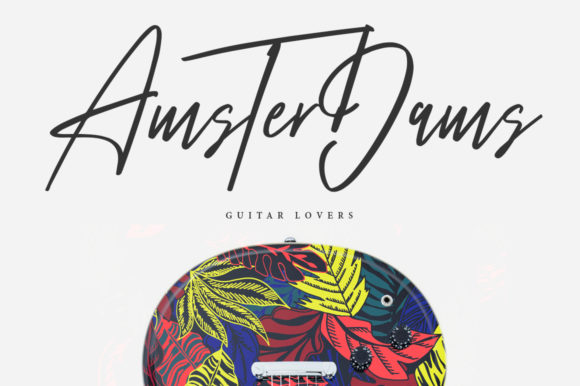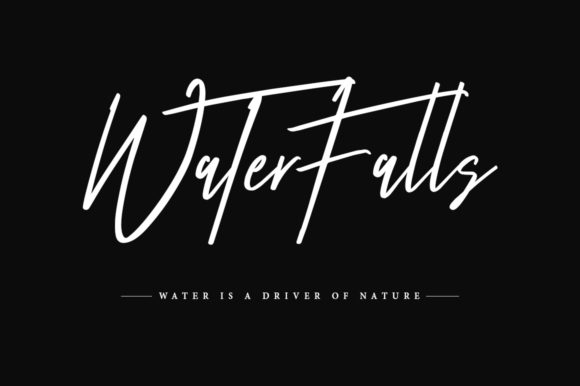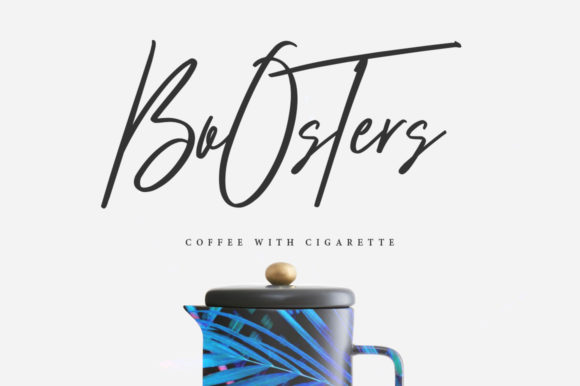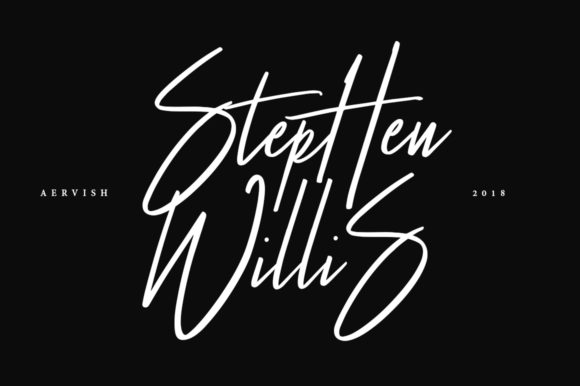
Aervish Font: The Perfect Casual Handwritten Font for Designers and Crafters
In the world of typography, fonts play a crucial role in conveying the tone and personality of a brand or project. For designers and crafters looking for a casual, yet unique and quirky font, Aervish is an excellent choice. This beautiful handwritten font, created using a brush pen, is perfect for a wide range of applications, from logos and branding to social media and DIY projects.
What is Aervish Font?
Aervish is a casual handwritten font that boasts a clean and slightly quirky aesthetic. Its unique charm makes it an ideal fit for designers and crafters seeking a font that adds a personal touch to their work. The font’s brush pen origins give it a distinct, hand-crafted feel that sets it apart from more traditional fonts.
Key Features of Aervish Font
• Casual and Handwritten: Aervish has a relaxed, approachable vibe that makes it perfect for projects that require a friendly tone.
• Clean and Quirky: The font’s clean lines and subtle quirks give it a unique personality that’s both visually appealing and engaging.
• Brush Pen Origins: The use of a brush pen in creating Aervish gives the font a distinctive, hand-crafted feel.
• Versatile: Aervish is suitable for a wide range of applications, from professional branding to personal DIY projects.
Uses of Aervish Font
Aervish’s versatility makes it an excellent choice for various projects, including:
• Logos and Branding: Create a unique and memorable brand identity with Aervish. Its casual, yet distinctive style makes it perfect for businesses looking to stand out.
• Social Media: Add a personal touch to your social media posts, stories, and graphics with Aervish. Its friendly tone and quirky aesthetic are sure to engage your audience.
• Crafty DIY Projects: Whether you’re creating handmade cards, crafting blog posts, or designing printables, Aervish is the perfect font to add a touch of personality to your work.
Why Choose Aervish Font?
With so many fonts available, why choose Aervish? Here are a few compelling reasons:
• Unique Style: Aervish offers a distinctive style that’s both casual and quirky, making it perfect for projects that require a personal touch.
• Ease of Use: Aervish is easy to read and works well in various contexts, from digital media to print materials.
• Customization: The font’s hand-crafted nature allows for a high degree of customization, making it easy to adapt to your project’s specific needs.
Tips for Using Aervish Font
To get the most out of Aervish, consider the following tips:
• Pair with Other Fonts: Combine Aervish with other fonts to create visual interest and add depth to your designs.
• Experiment with Colors: Aervish works well with a variety of colors. Experiment with different palettes to find the perfect match for your project.
• Play with Sizes: Don’t be afraid to vary the font size to create emphasis and add visual hierarchy to your designs.
Aervish font is a versatile and charming casual handwritten font that’s perfect for designers and crafters looking to add a personal touch to their work. Its unique blend of cleanliness and quirkiness makes it an excellent choice for a wide range of projects, from logos and branding to social media and DIY crafts. With its ease of use, customization options, and distinctive style, Aervish is sure to become a go-to font in your design arsenal.